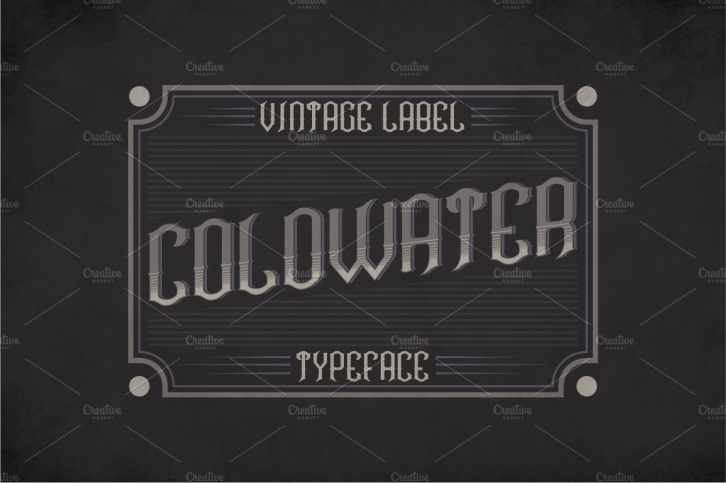
Introducing a vintage look label typeface named "Coldwater". It's made in strong and vintage label style. Typeface is good viewed on any labels design.